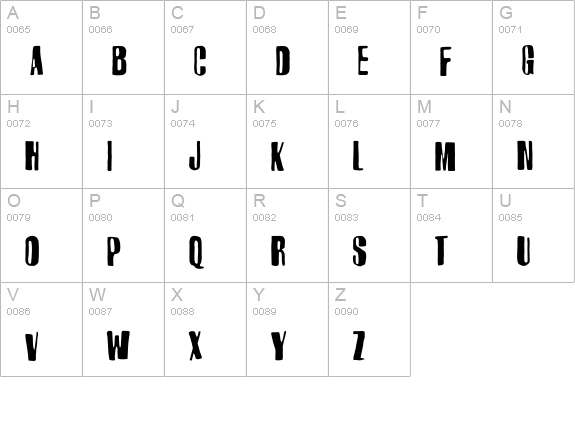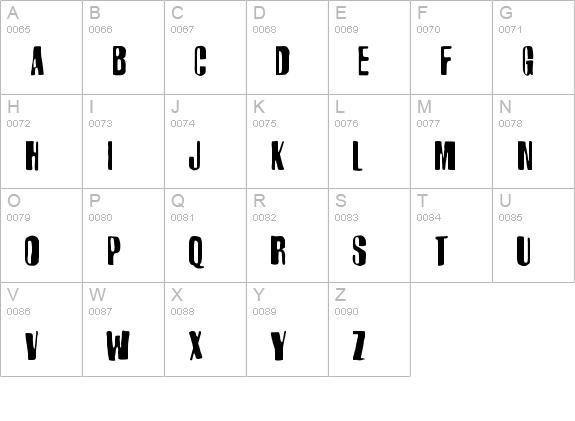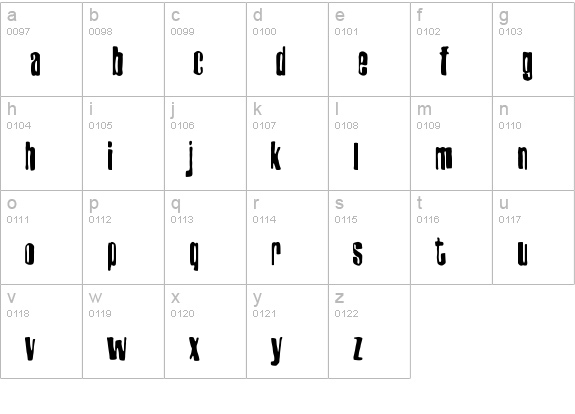
Harlem-SlangNormal Font Details
Harlem-SlangNormal font is a vibrant and energetic typeface that embodies the spirit of the iconic Harlem neighborhood in New York City. With its bold and expressive letterforms, this font captures the essence of the vibrant street culture and artistic movements that have thrived in Harlem for decades. Featuring a unique blend of urban flair and vintage charm, Harlem-SlangNormal font is perfect for adding a touch of urban sophistication to your designs. Whether you're creating a poster for a hip-hop concert, designing a streetwear brand logo, or crafting a flyer for a cultural event, this font will effortlessly elevate your creations. With its wide range of characters and glyphs, Harlem-SlangNormal font offers versatility and flexibility for all your design needs. From uppercase letters that command attention to lowercase letters that exude a sense of coolness, this font allows you to freely express your creativity. Not only does Harlem-SlangNormal font bring a dynamic and edgy aesthetic to your designs, but it is also freely available to download at FontsMarket.com. This means that you can easily access and utilize this font in your projects without any restrictions. Whether you're a professional designer or a hobbyist, the accessibility of Harlem-SlangNormal font allows you to freely explore its potential and incorporate it into your creative endeavors. So, if you're looking to infuse your designs with the vibrant energy and cultural richness of Harlem, look no further than Harlem-SlangNormal font. Download it for free at FontsMarket.com and unleash your creativity with this captivating typeface.